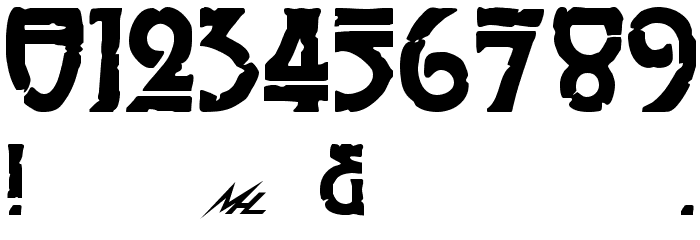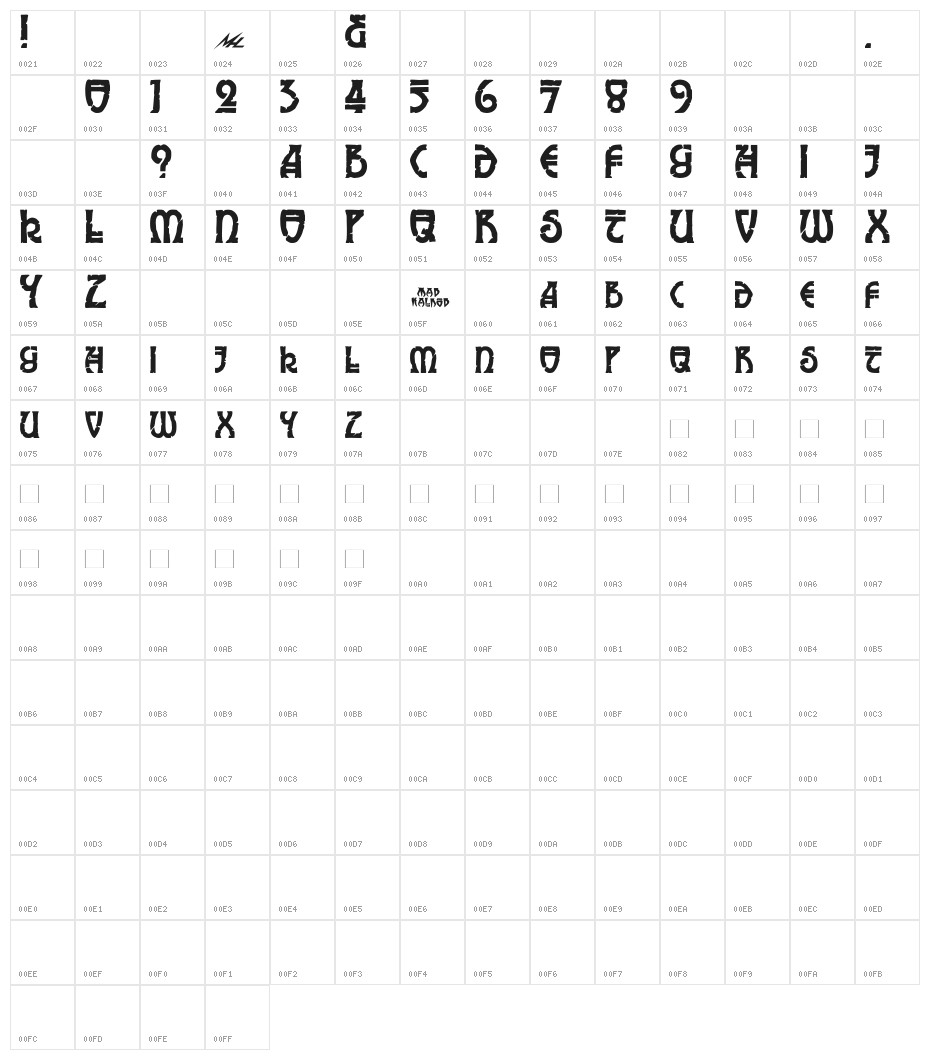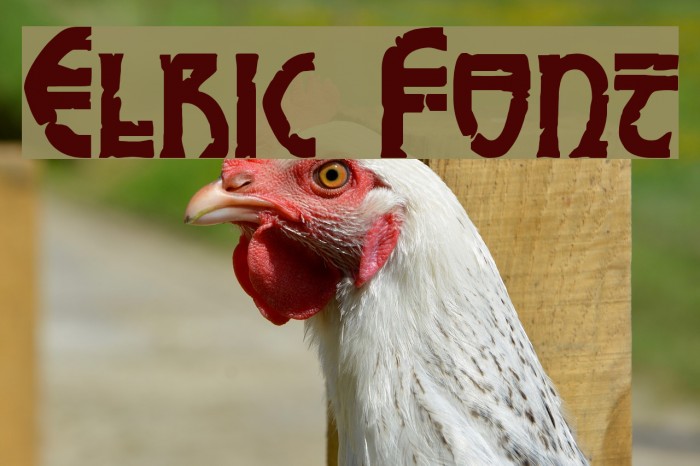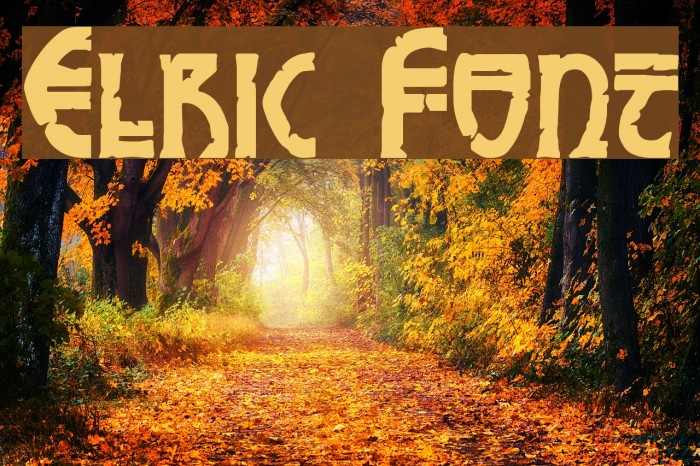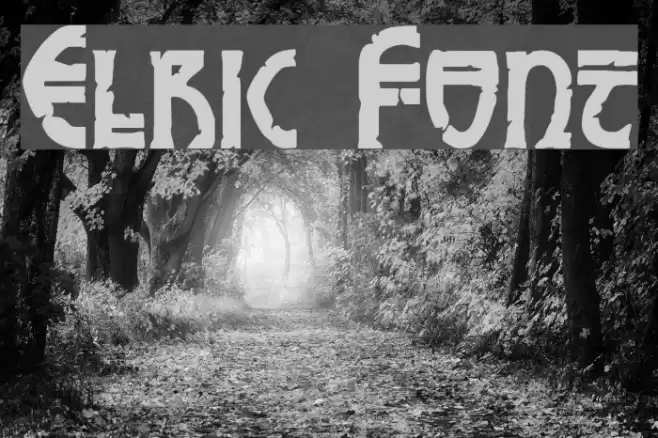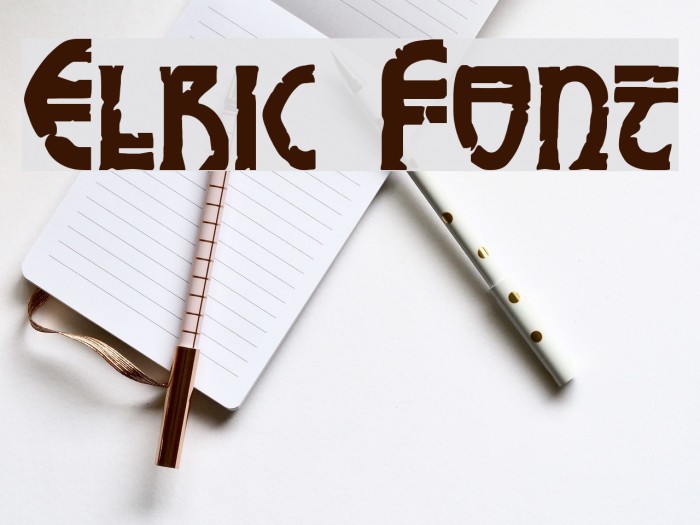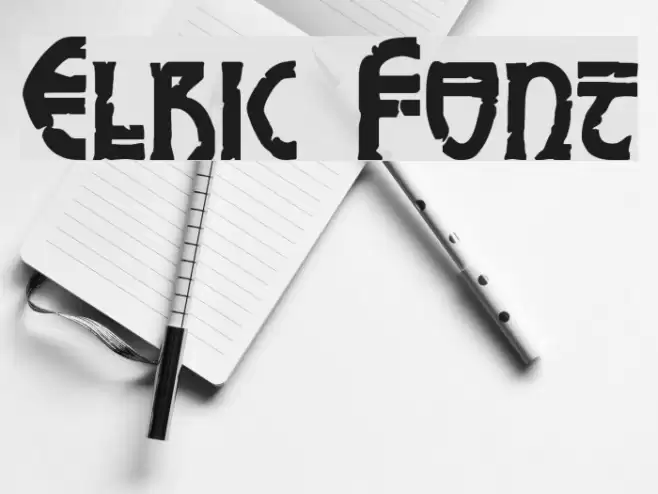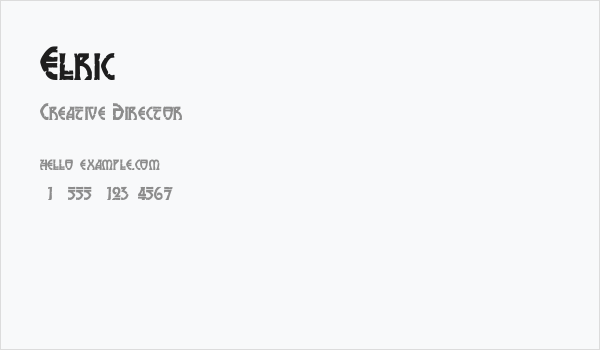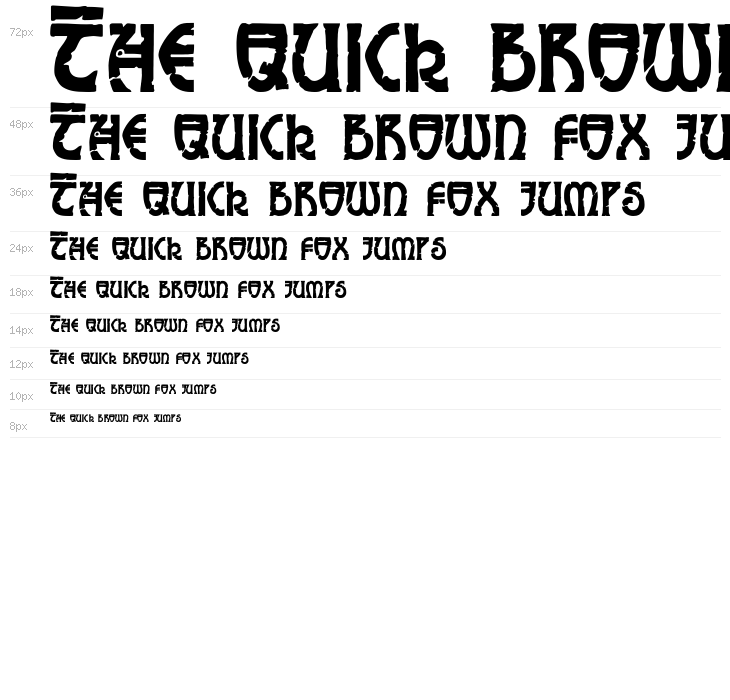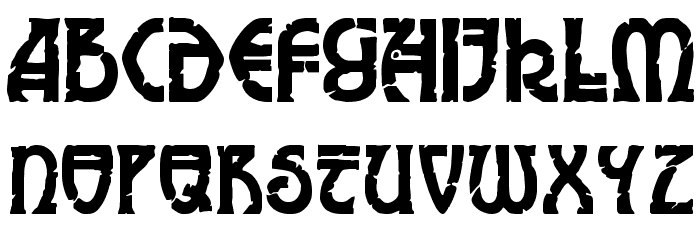
Elric Font
Elric Description
This font features a bold and dramatic style with a distinct gothic influence. The characters are heavily stylized with sharp angles and thick strokes, giving it a strong and impactful presence. The uppercase and lowercase letters maintain a consistent design, while the numbers and special characters complement the overall aesthetic. The font's unique appearance makes it suitable for projects that require a bold statement or a touch of medieval flair.
| Overall Style | Gothic, Dramatic |
| Proposed Projects | Ideal for fantasy-themed designs, book covers, posters, and branding that requires a dramatic and bold look. |